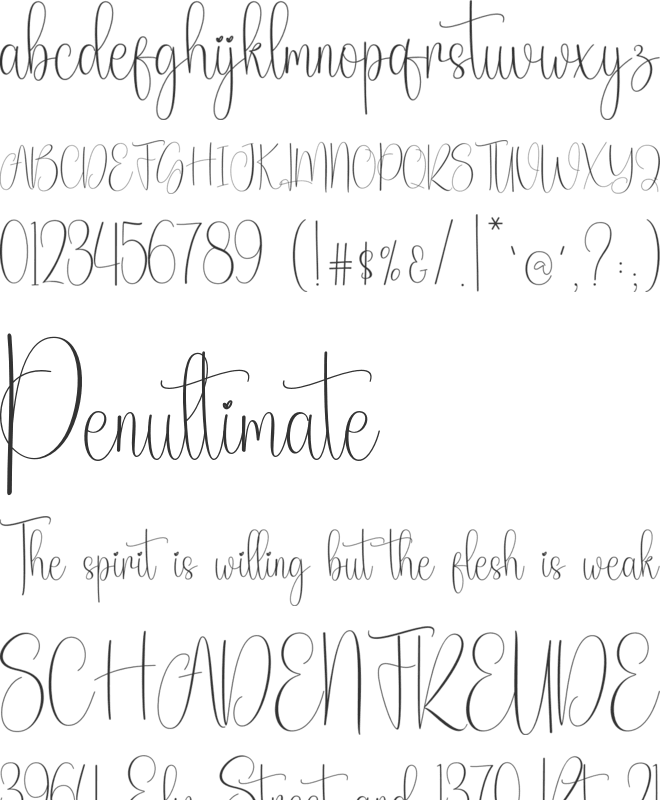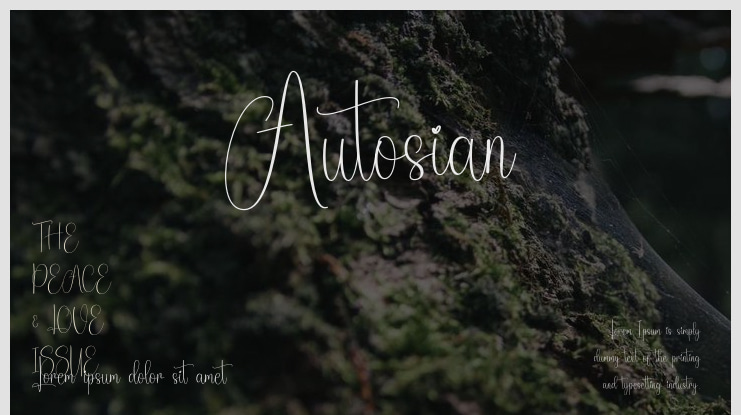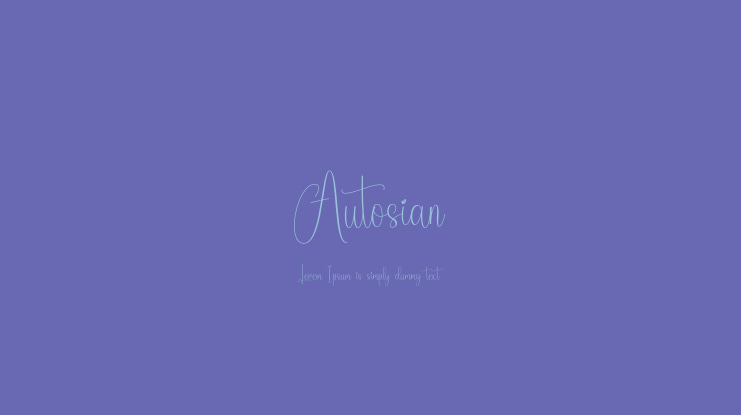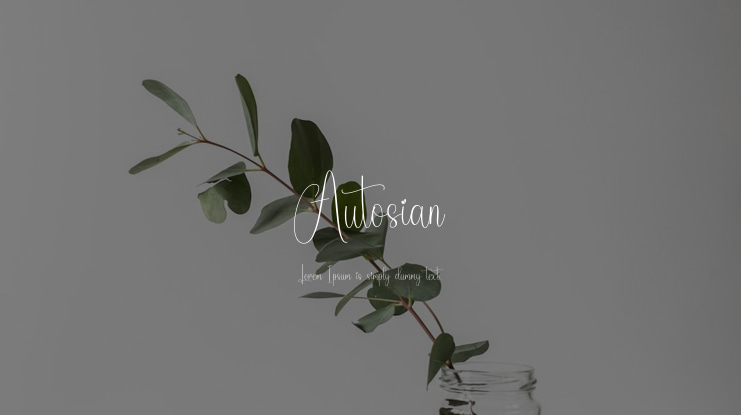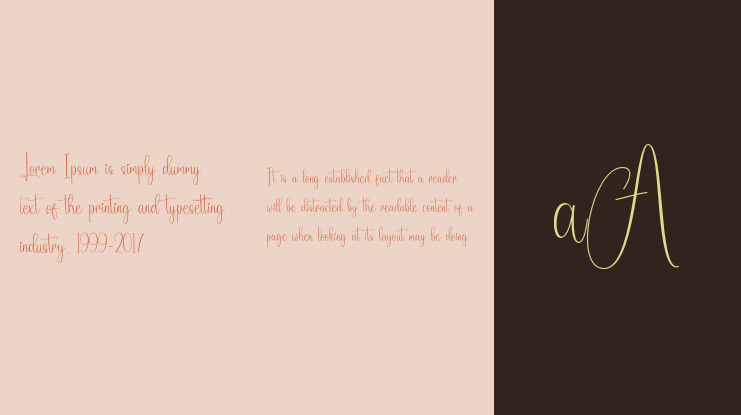
Autosian Font
Muhammad Nasir
The latest Autosian Font signature seamlessly blends sleek elegance with modern flair, characterized by smooth, flowing lines and distinctive curves. Its dynamic character adds a touch of sophistication, making it ideal for branding, invitations, or any creative project that aims to leave a lasting impression. Each letter exudes personality, harmonizing classic and contemporary styles to create a unique typographic experience.